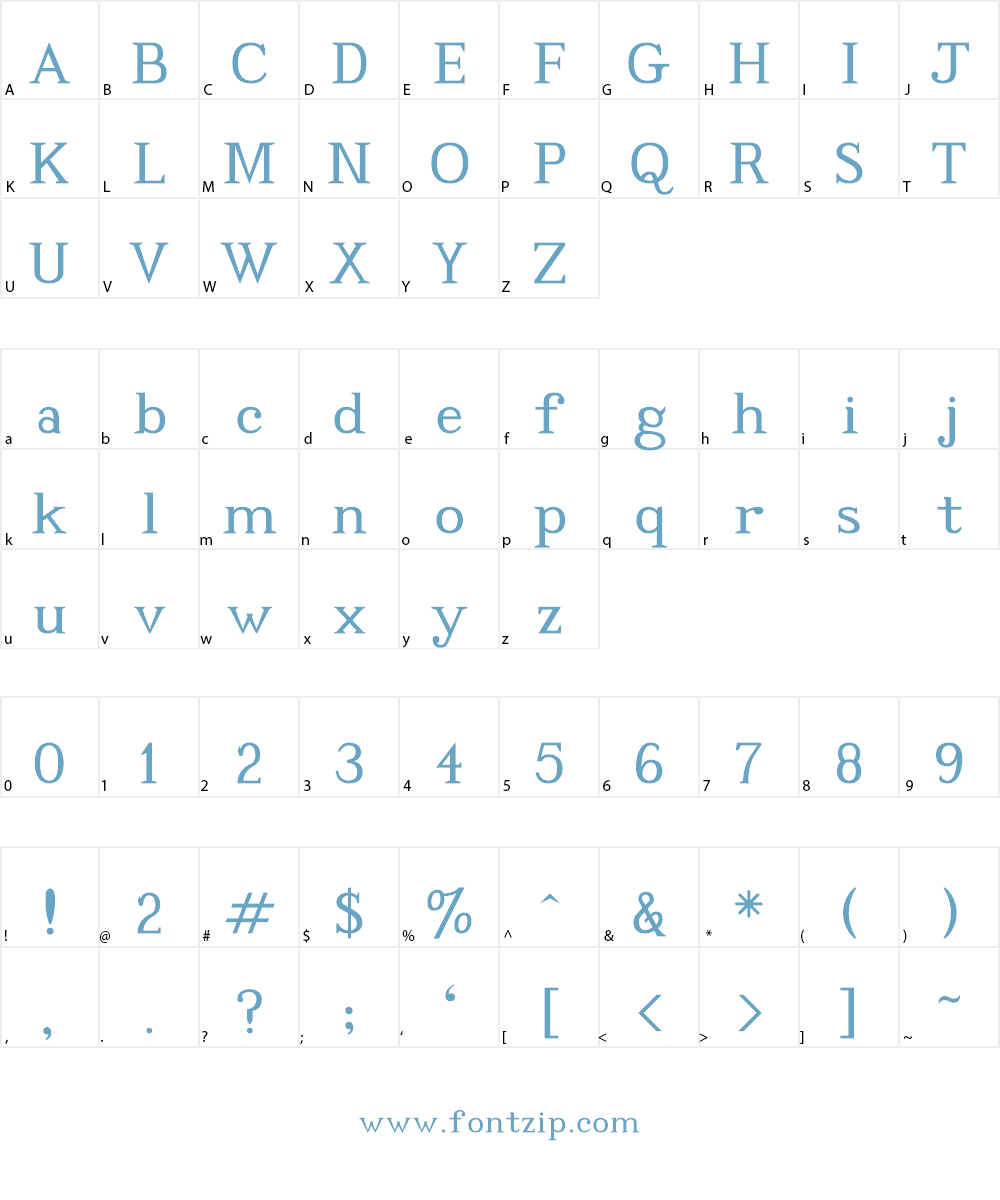
Code2000 is a Unicode-based TrueType font striving to eventually represent all of the extended characters and symbols assigned to the Basic Multilingual Plane of Unicode in a consistent typeface.
Its developer has tried to create a distinctive style or flavor for the characters while remaining faithful to the classic letter forms of the various scripts.
Code2000 is a work-in-process. It currently (Version 1.171) has over 60000 glyphs.
Although it is more-or-less readable at 12 - 18 point, it is much clearer at about 24 point. Some of the dingbats should be at least 36 point. With font- smoothing it looks good at normal sizes.